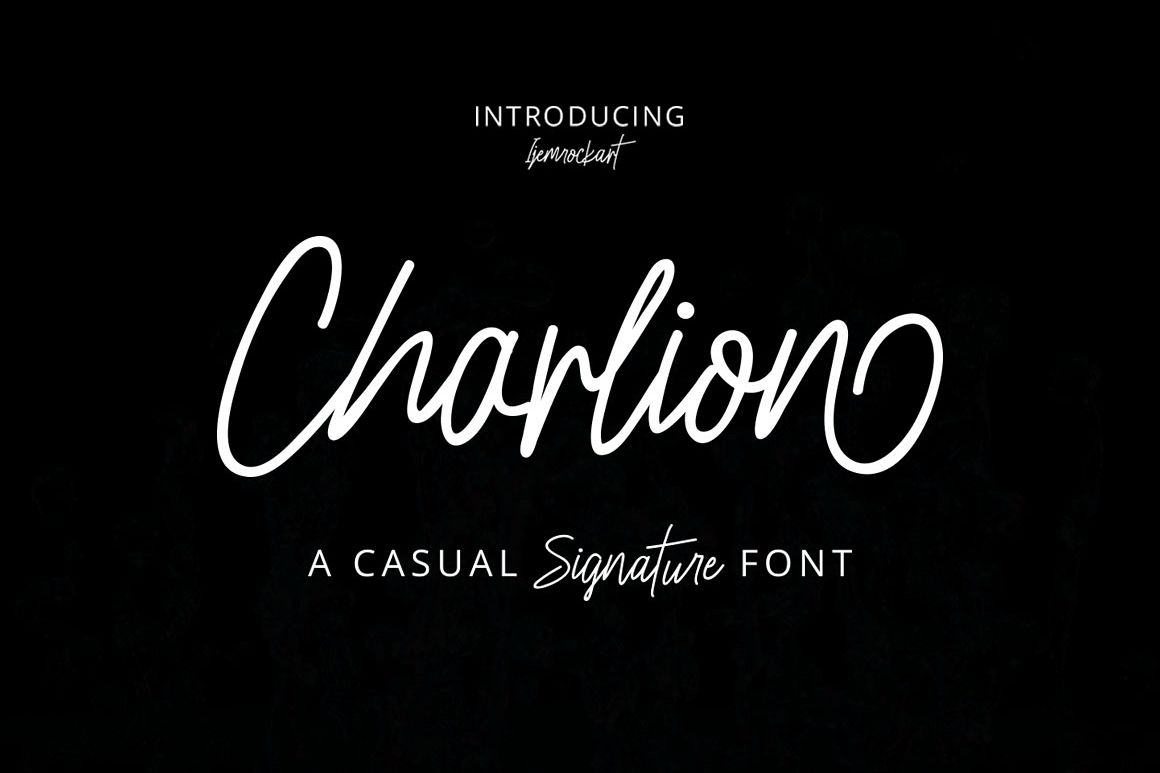
Charlion Script 2 Style
Charlion Script 2 Style is a hand lettering typeface, with authentic Clean and bold imperfections, and a very bouncy baseline It has a perfectly paired complimentary marker font , and a super handy set of bonus Swash. Ideal for logos, handwritten quotes, product packaging, header, poster, merchandise, social media & greeting cards.Files Include :Charlion Script.otf & ttfCharlion Slant Script.otf & ttfFeatures